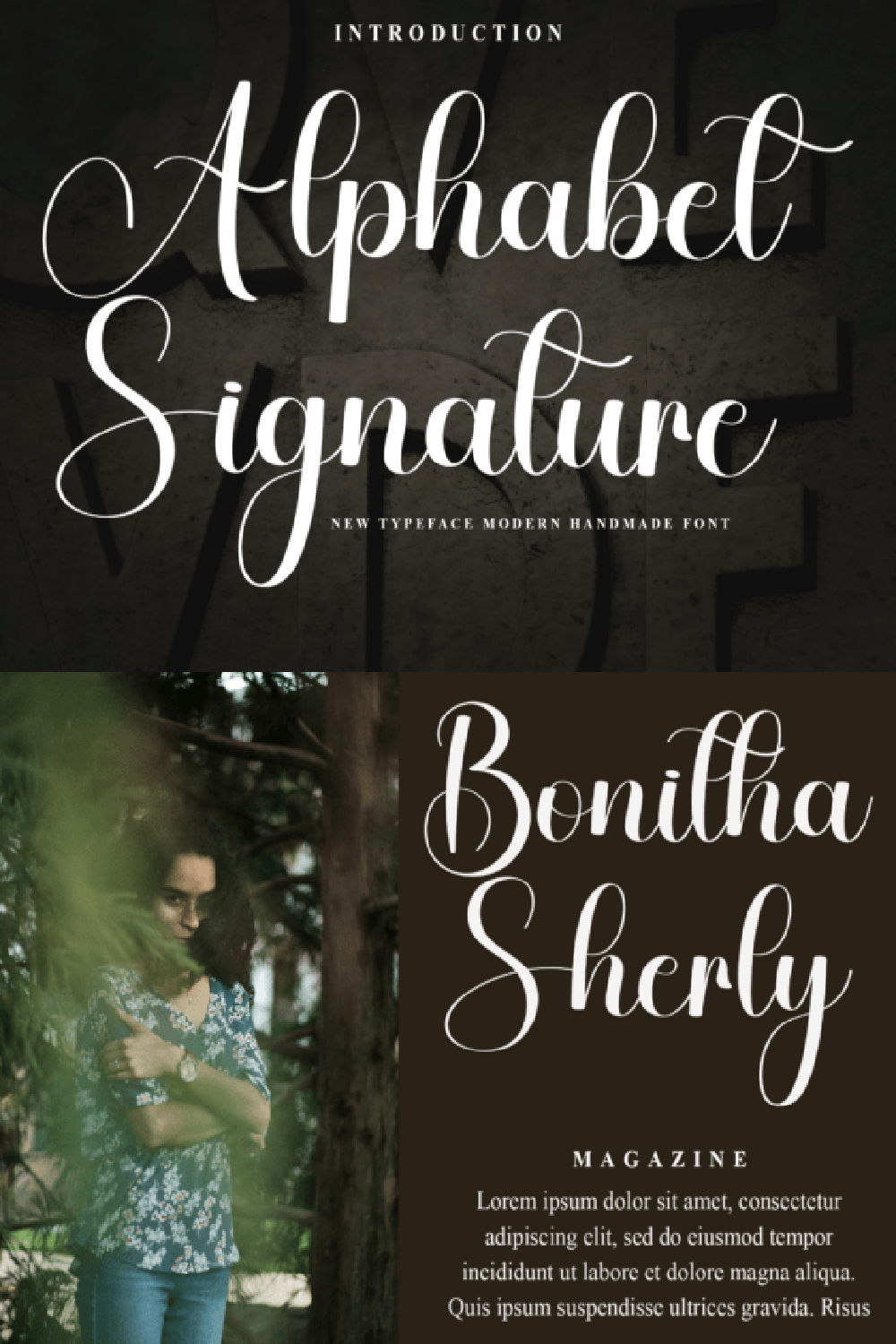
Alphabet Signature Font
About the Alphabet Signature Font
Experience the unique personality of Alphabet Signature Font, a font designed for impact. Alphabet Signature is a casual and creative font that exudes warmth and friendliness. Its round, playful strokes create a relaxed and approachable feel, perfect for personal projects, invitations, and social media graphics. The font’s charming, hand-drawn aesthetic adds a fun and unique touch to any design.
Alphabet Signature Font excels in headlines, short text blocks, logos, and social media posts where its playful nature shines. It’s ideal for brands targeting a young, approachable audience, particularly in the food, beverage, or lifestyle sectors. However, its casual style makes it unsuitable for large bodies of text or applications requiring high readability, such as books or websites.
For optimal pairings, consider pairing Alphabet Signature with a clean sans-serif like Open Sans for body copy, creating a strong contrast in style. Alternatively, a more geometric sans-serif such as Montserrat could provide a modern counterpoint. A classic serif like Garamond could add a touch of sophistication for a more balanced and refined feel.
The font’s core personality is undeniably friendly and approachable, conveying warmth and creativity. Avoid using it in contexts demanding formality or professionalism.
Alphabet Signature Font Usage Examples
Alphabet Signature Font Example